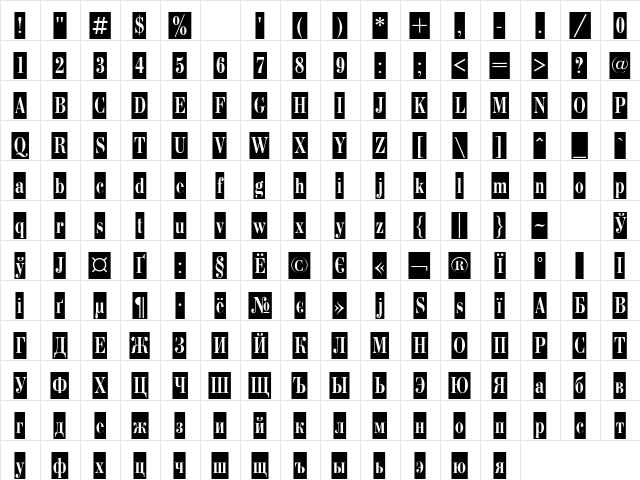
BodoniCameoC Regular
Design Context for BodoniCameoC Typeface
BodoniCameoC offers clean, dependable letterforms without strong stylistic allegiance, making it a practical choice for designers who need flexibility.